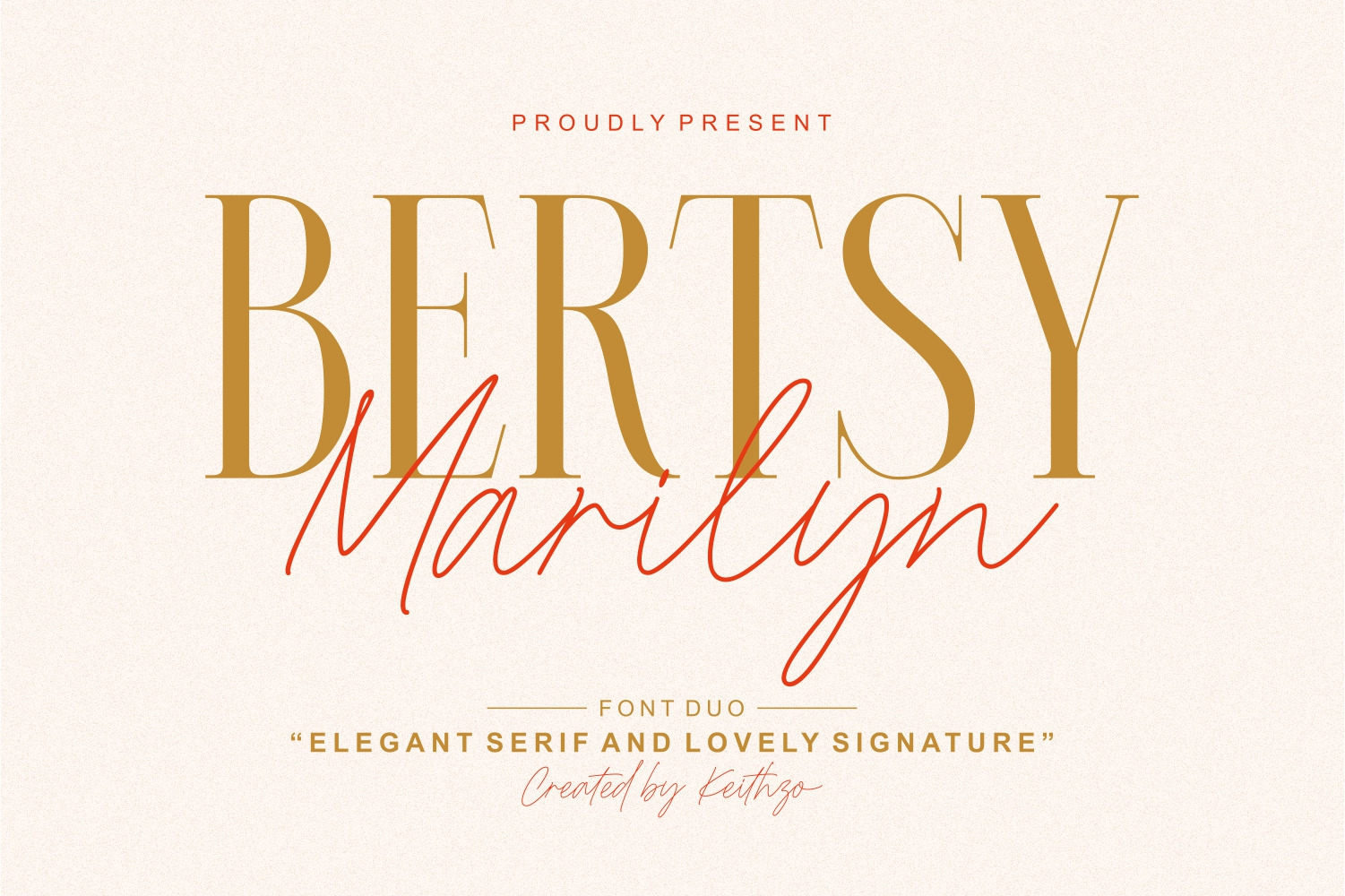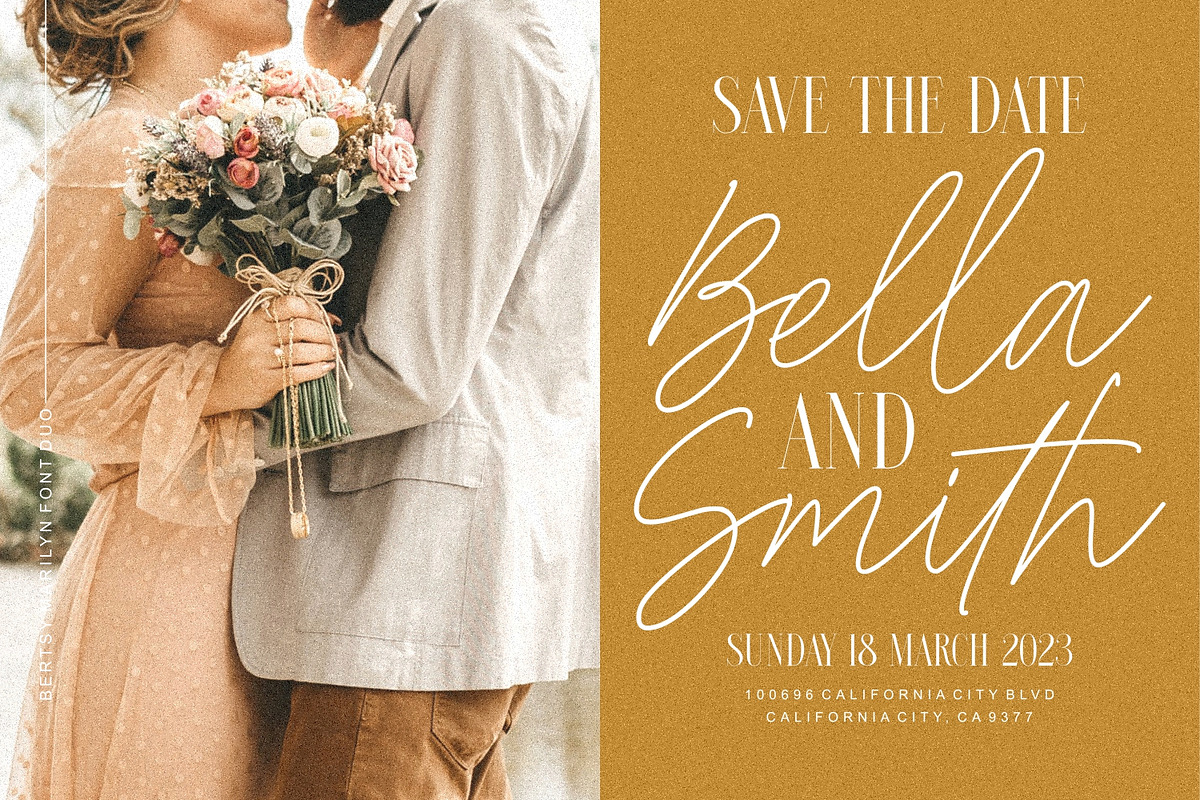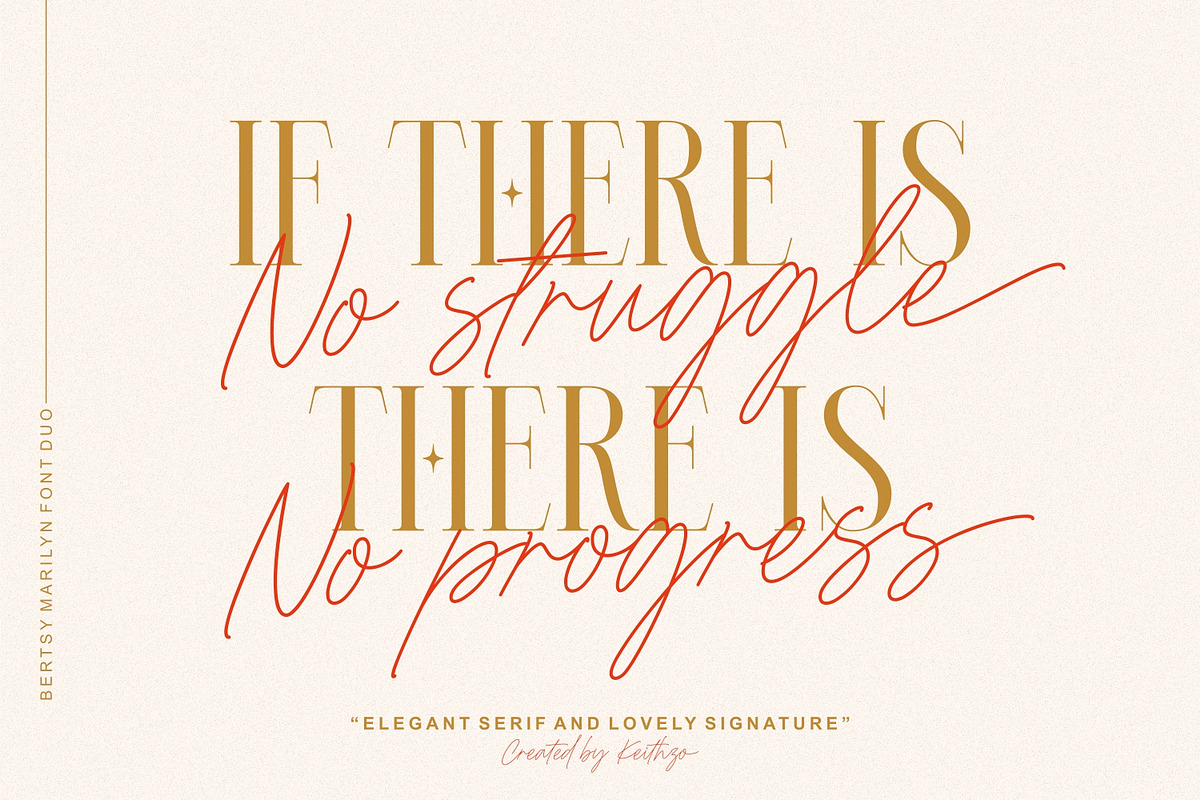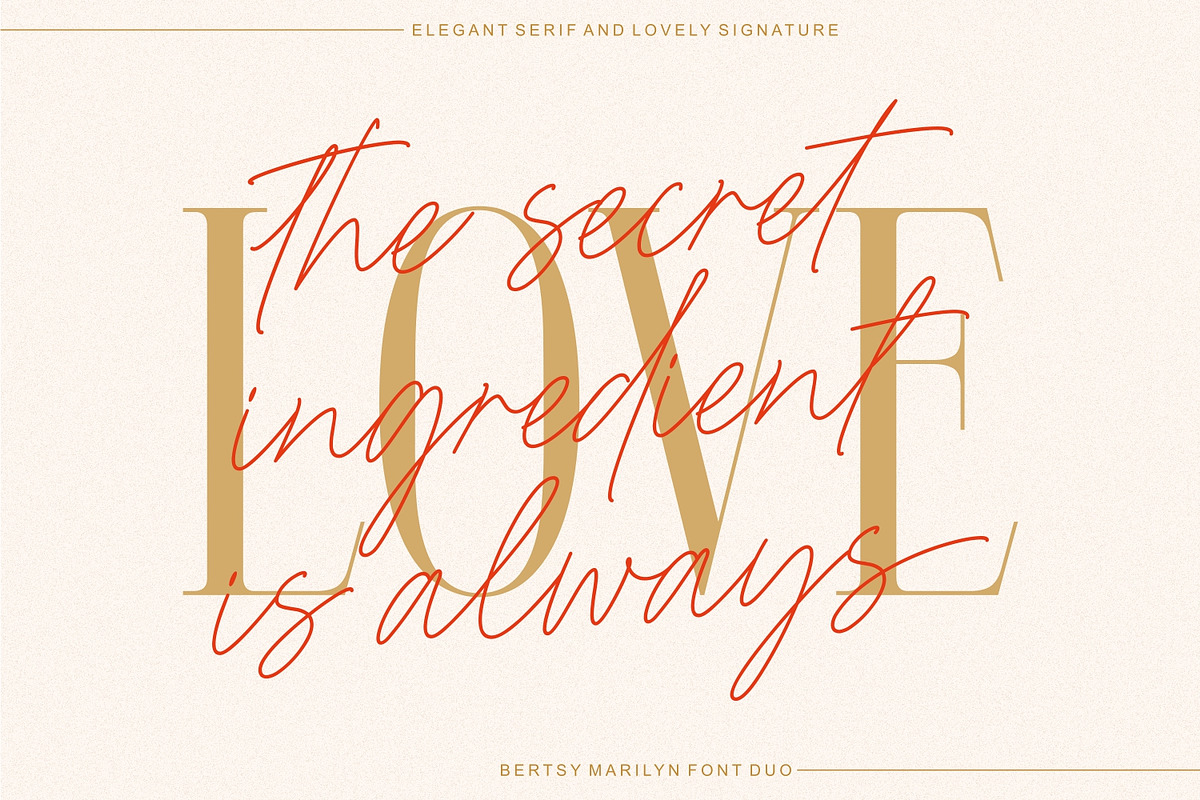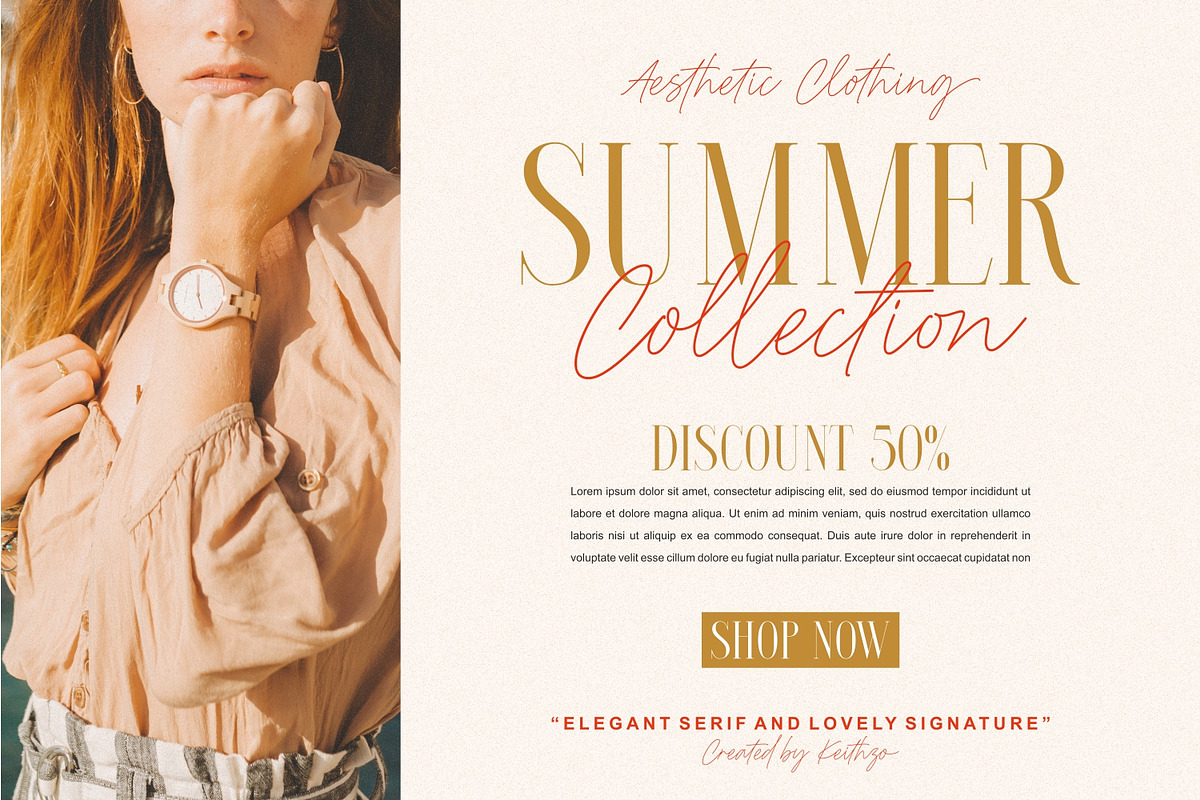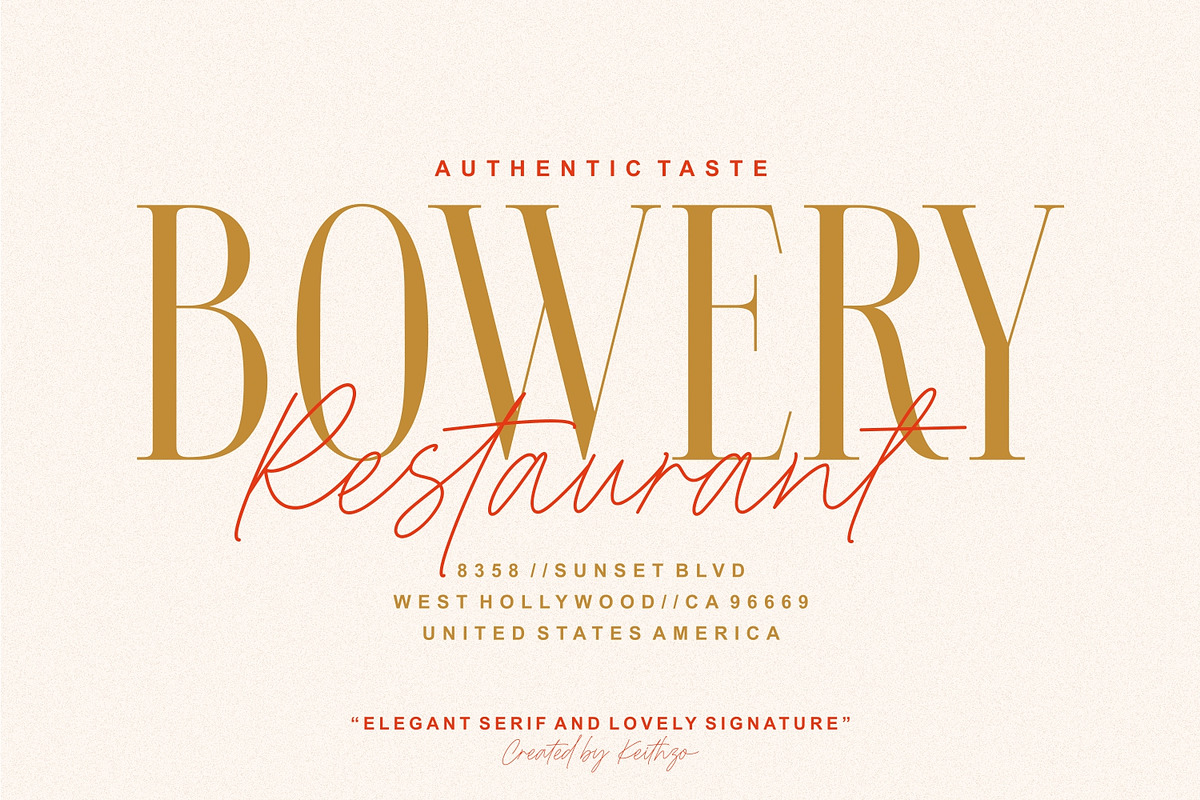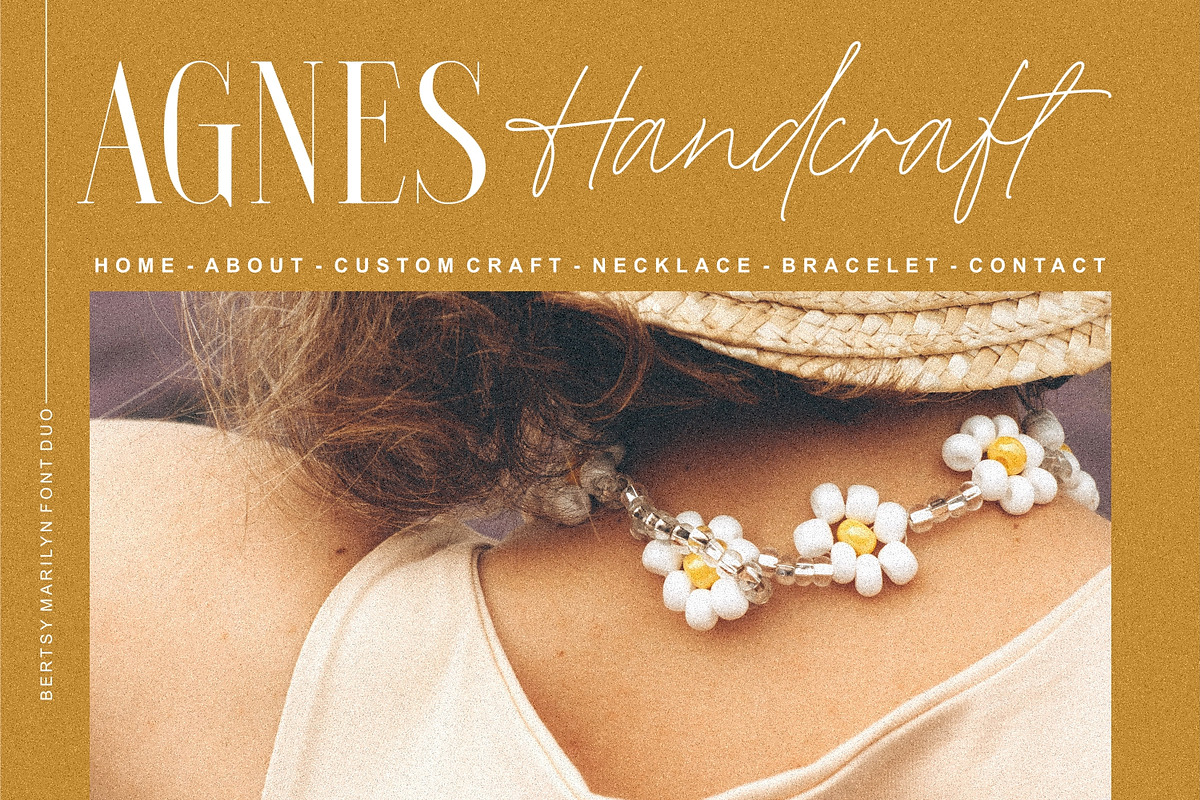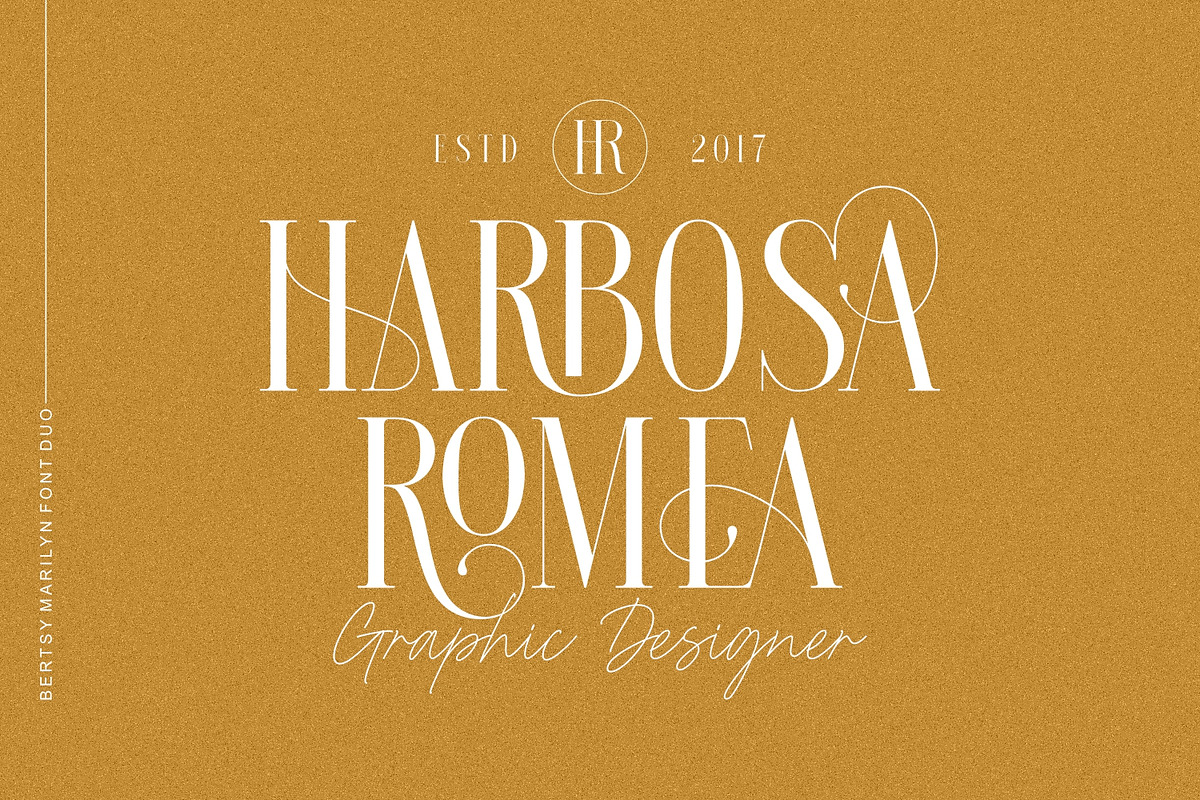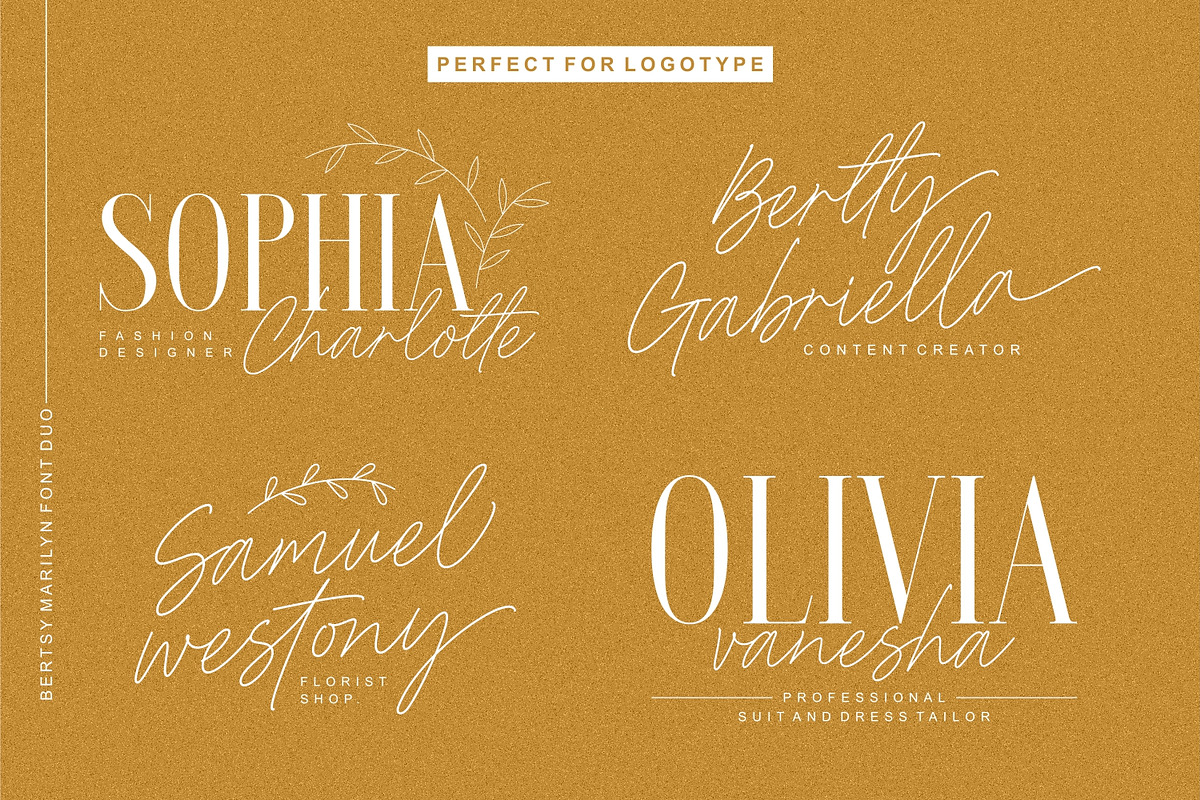
Bertsy Marilyn - Font Duo
Looking for an attractive and retro serif font to elevate your project ? With its delicate curves and whimsical details, Bertsy Marilyn adds a touch of elegance and playfulness to any design. Don’t miss out on this must-have font for your next project. This font is PUA encoded which means you can access all of the amazing glyphs and ligatures with ease!